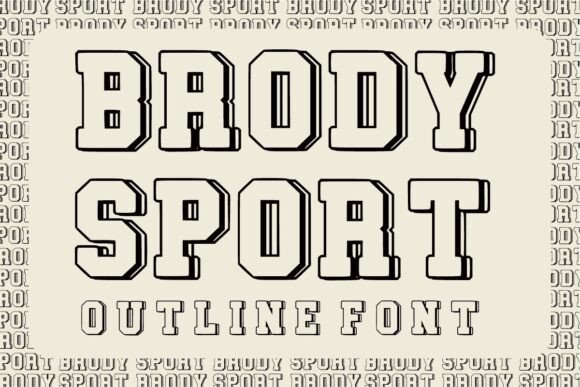
Introducing Brody Sport Font: The Ultimate College Vintage Font for Winter and Holiday Branding
Are you looking for a font that can add a touch of nostalgia and sophistication to your winter and holiday branding projects? Look no further than the Brody Sport font. This outline college vintage font is perfect for creating unique and eye-catching designs that will stand out from the crowd. In this article, we’ll explore the features and benefits of the Brody Sport font, and how it can be used to elevate your branding, packaging, and marketing materials.
What is Brody Sport Font?
Brody Sport font is a carefully crafted outline college vintage font that is inspired by the classic typography of sports teams and colleges. It features bold lines, sharp edges, and a distinctive outline style that gives it a unique and recognizable look. The font is highly versatile and can be used for a wide range of applications, from winter and holiday branding to product packaging, invitations, quotes, t-shirts, labels, posters, and more.
Key Features of Brody Sport Font
- Unique Outline Style: The Brody Sport font features a distinctive outline style that sets it apart from other fonts. The outline is carefully crafted to create a bold and eye-catching look that is perfect for making a statement.
- College Vintage Inspiration: The font is inspired by the classic typography of sports teams and colleges, giving it a nostalgic and retro feel that is perfect for winter and holiday branding.
- Highly Versatile: The Brody Sport font is highly versatile and can be used for a wide range of applications, from branding and packaging to marketing materials and more.
- Easily Customizable: The font is easily customizable, allowing you to adjust the size, color, and style to fit your specific needs.
Benefits of Using Brody Sport Font
There are many benefits to using the Brody Sport font for your winter and holiday branding projects. Here are just a few:
- Stand Out from the Crowd: The Brody Sport font is a unique and eye-catching font that will help your branding and marketing materials stand out from the crowd.
- Add a Touch of Nostalgia: The font’s college vintage inspiration adds a touch of nostalgia and sophistication to your designs, making them more appealing to your target audience.
- Increase Brand Recognition: The Brody Sport font is highly legible and easy to read, making it perfect for creating branding and marketing materials that will increase brand recognition and awareness.
Using Brody Sport Font for Winter and Holiday Branding
The Brody Sport font is perfect for winter and holiday branding projects, including:
- Snowboard and Ski Resort Branding: The font’s bold and eye-catching style is perfect for creating branding and marketing materials for snowboard and ski resorts.
- Holiday Packaging: The font can be used to create eye-catching and unique packaging for holiday products, such as gifts, decorations, and more.
- Winter Sports Team Branding: The font’s college vintage inspiration makes it perfect for creating branding and marketing materials for winter sports teams.
- Christmas and New Year’s Marketing Materials: The font can be used to create festive and eye-catching marketing materials for Christmas and New Year’s promotions.
Tips for Using Brody Sport Font
Here are a few tips for using the Brody Sport font:
- Use it Bold and Bright: The font’s bold and eye-catching style is perfect for making a statement. Use it in bold and bright colors to create eye-catching designs.
- Experiment with Different Sizes: The font is highly legible and easy to read, making it perfect for use in a variety of sizes. Experiment with different sizes to find the one that works best for your design.
- Pair it with Other Fonts: The Brody Sport font can be paired with other fonts to create a unique and eye-catching look. Experiment with different font combinations to find the one that works best for your design.
The Brody Sport font is a unique and eye-catching outline college vintage font that is perfect for winter and holiday branding projects. Its bold and eye-catching style, college vintage inspiration, and high versatility make it a great choice for creating branding, packaging, and marketing materials that will stand out from the crowd. With its cost-effective pricing and ease of use, the Brody Sport font is a great addition to any designer’s toolkit.
- What is the Brody Sport font?: The Brody Sport font is an outline college vintage font that is inspired by the classic typography of sports teams and colleges.
- What is the font suitable for?: The font is suitable for a wide range of applications, including winter and holiday branding, product packaging, invitations, quotes, t-shirts, labels, posters, and more.
- Is the font easy to use?: Yes, the font is highly legible and easy to read, making it perfect for use in a variety of designs.
- Can I customize the font?: Yes, the font is easily customizable, allowing you to adjust the size, color, and style to fit your specific needs.